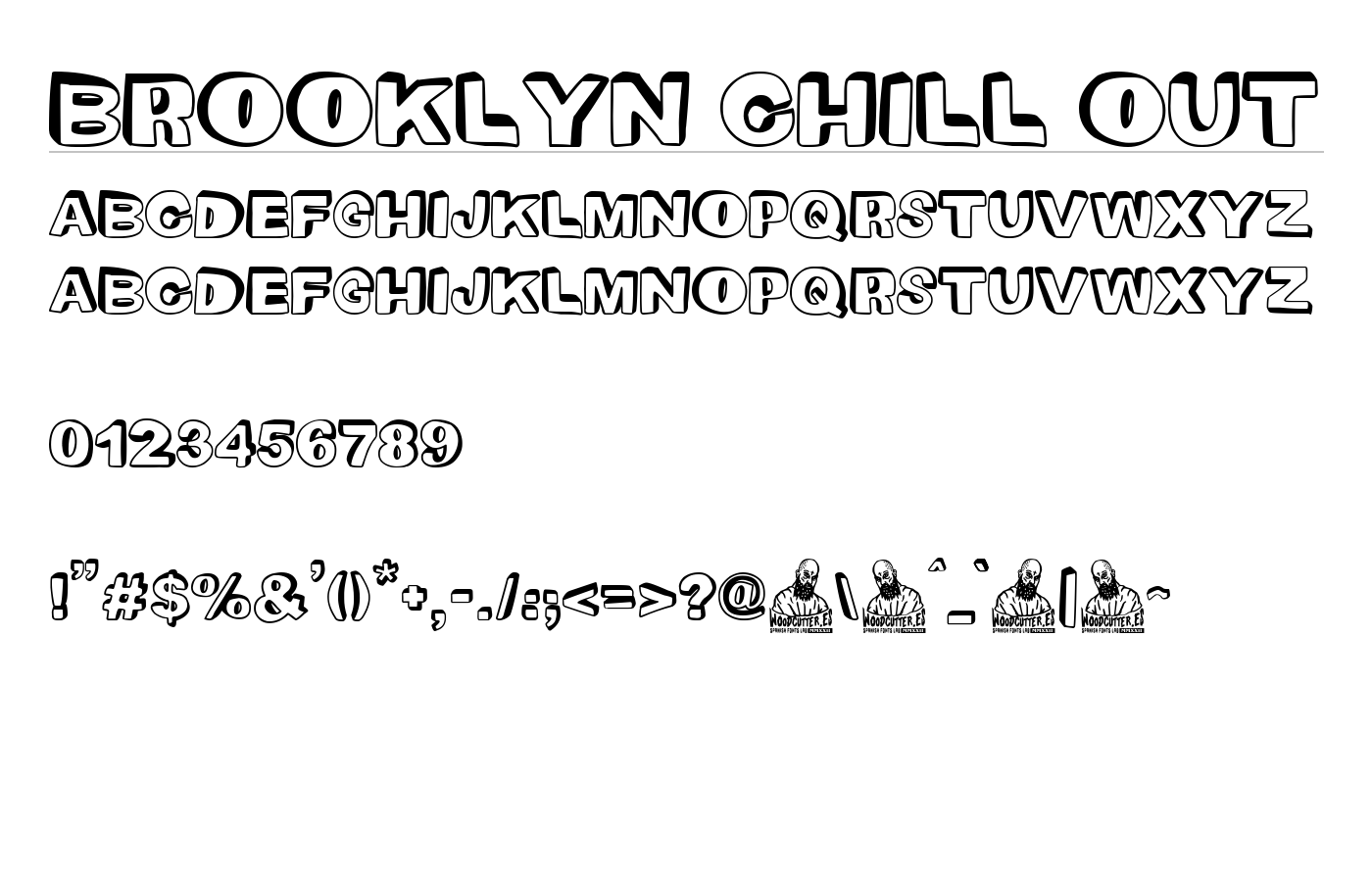
Brooklyn Chill Out is a bold and playful display font with thick, rounded letterforms and a distinctive outlined shadow effect that adds depth and character. Its casual, hand-drawn style makes it perfect for fun, energetic designs like posters, logos, and packaging where a lively and approachable vibe is desired. This font shines in headlines and creative branding, offering a charming, relaxed personality that captures attention with ease.
Brooklyn Chill Out Font
About Brooklyn Chill Out Font